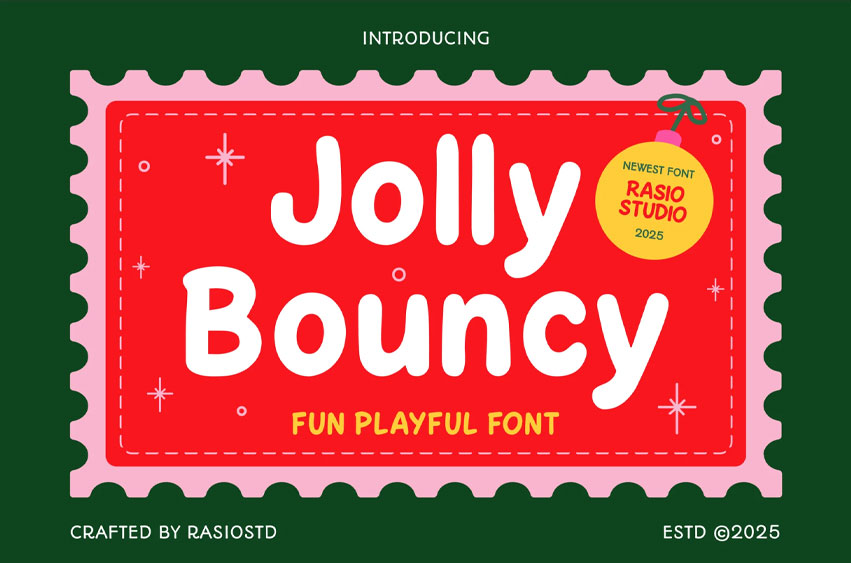
Jolly Bouncy Font
Jolly Bouncy Font is a fun, playful sans-serif font with rounded, bouncy letters that bring a cheerful and whimsical feel to your designs. Perfect for kids-themed projects, holiday greetings, boho invitations, food branding, celebration posters, and cute product packaging. With multilingual support, numerals, and punctuation, it’s great for logos, headings, social media graphics, and festive designs that need an energetic and friendly vibe.